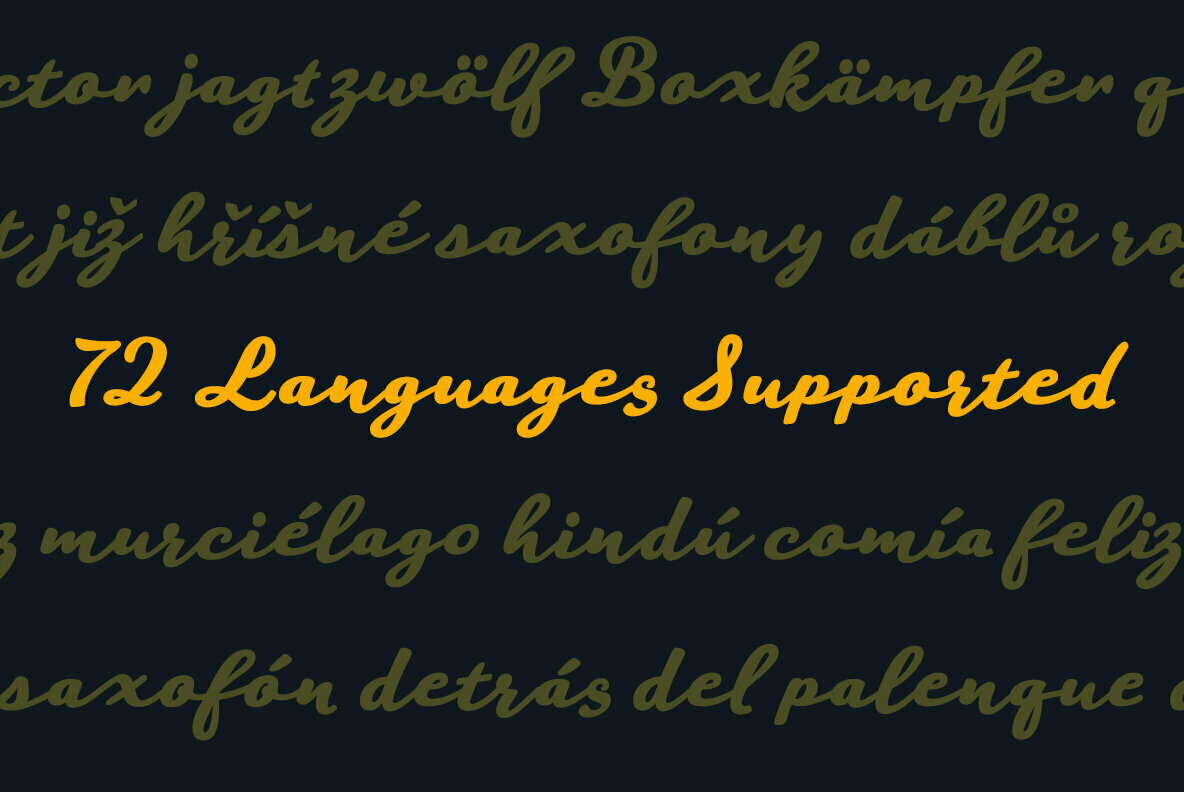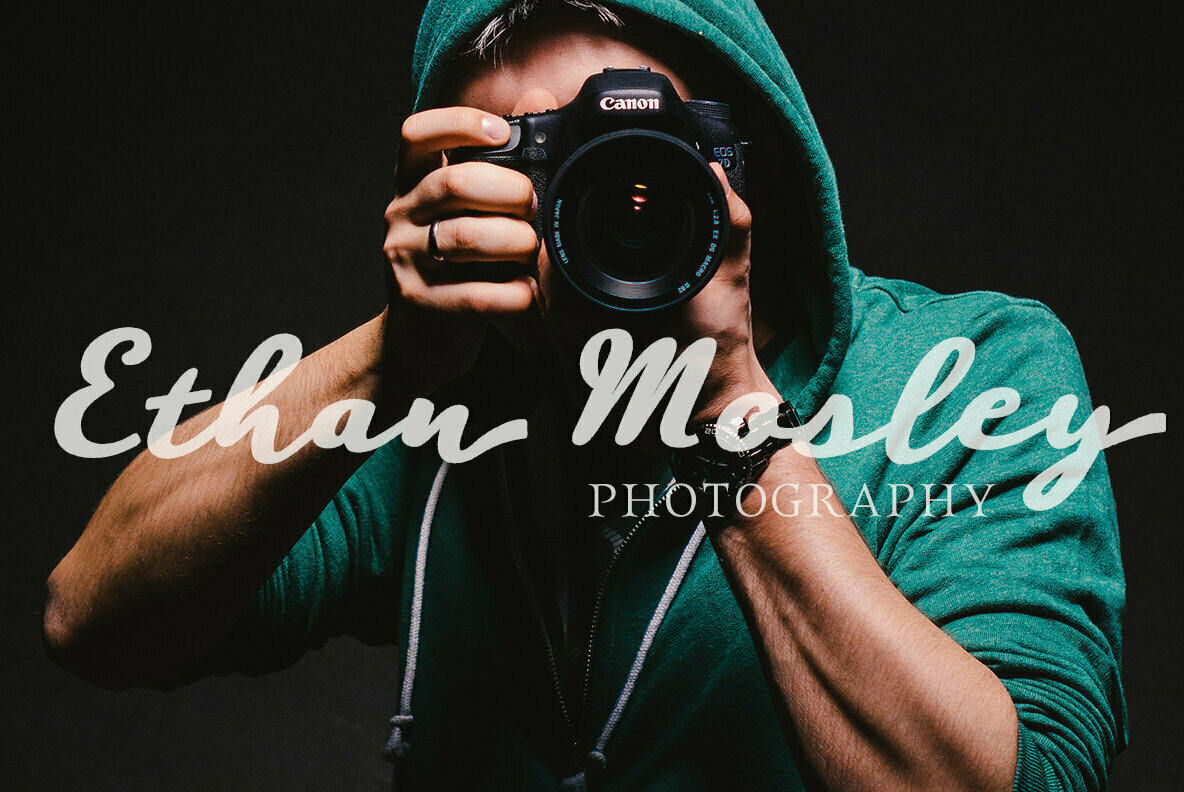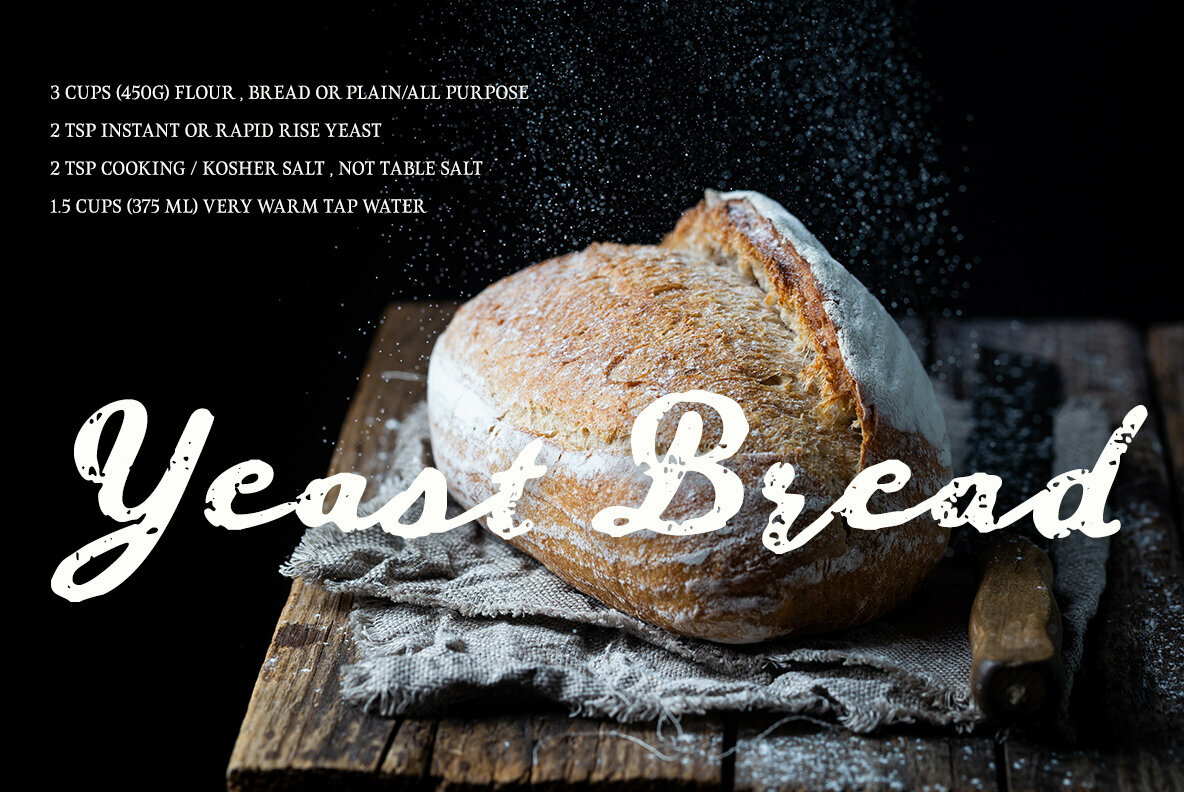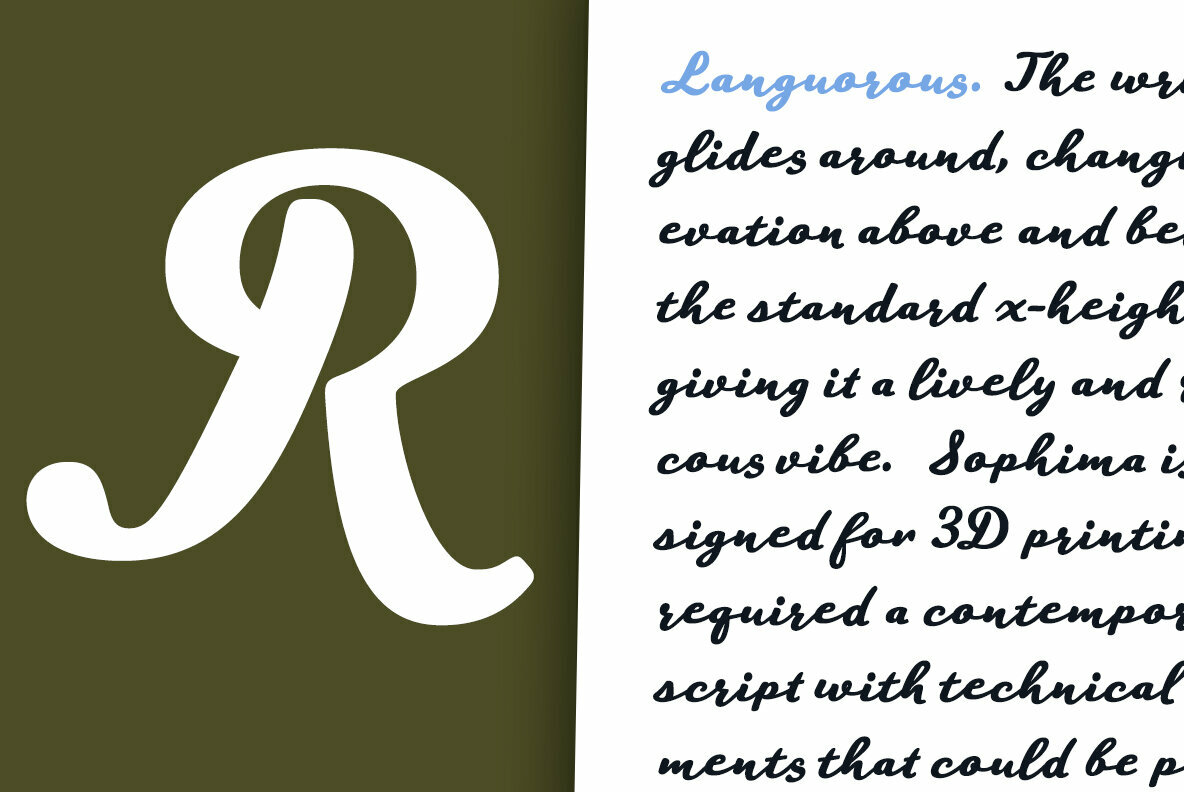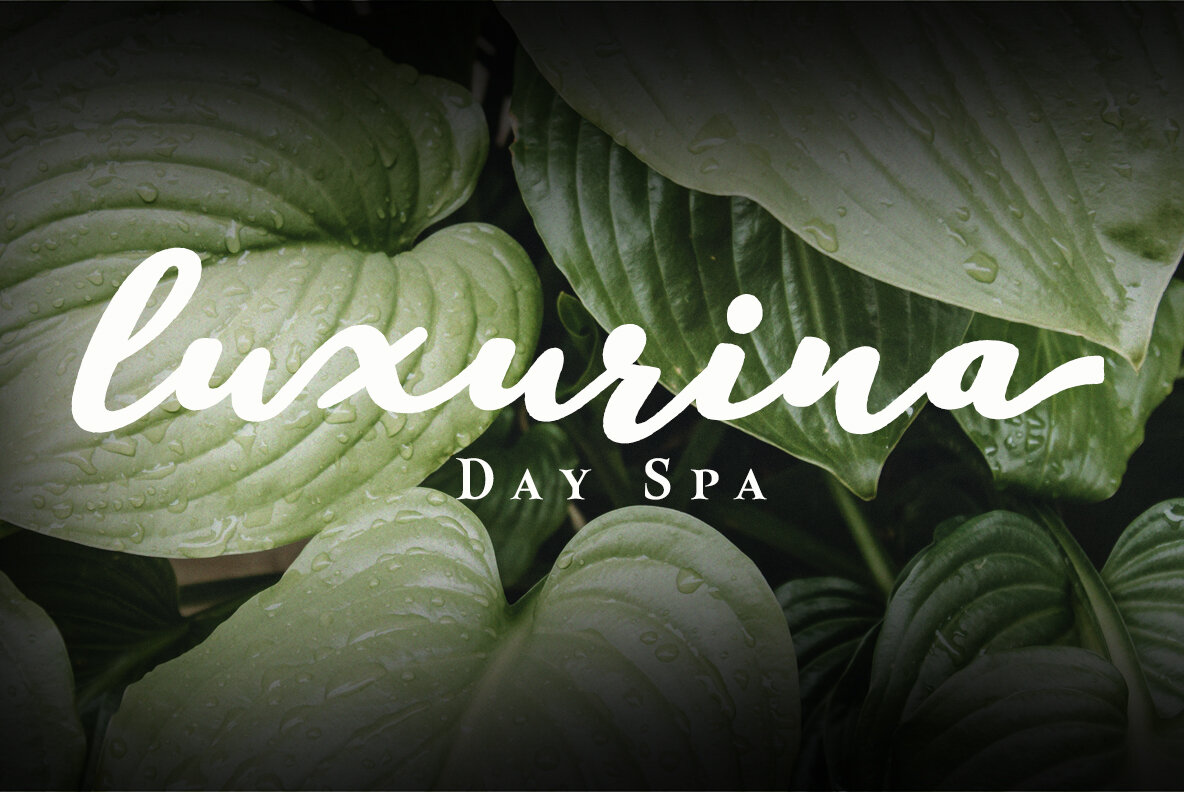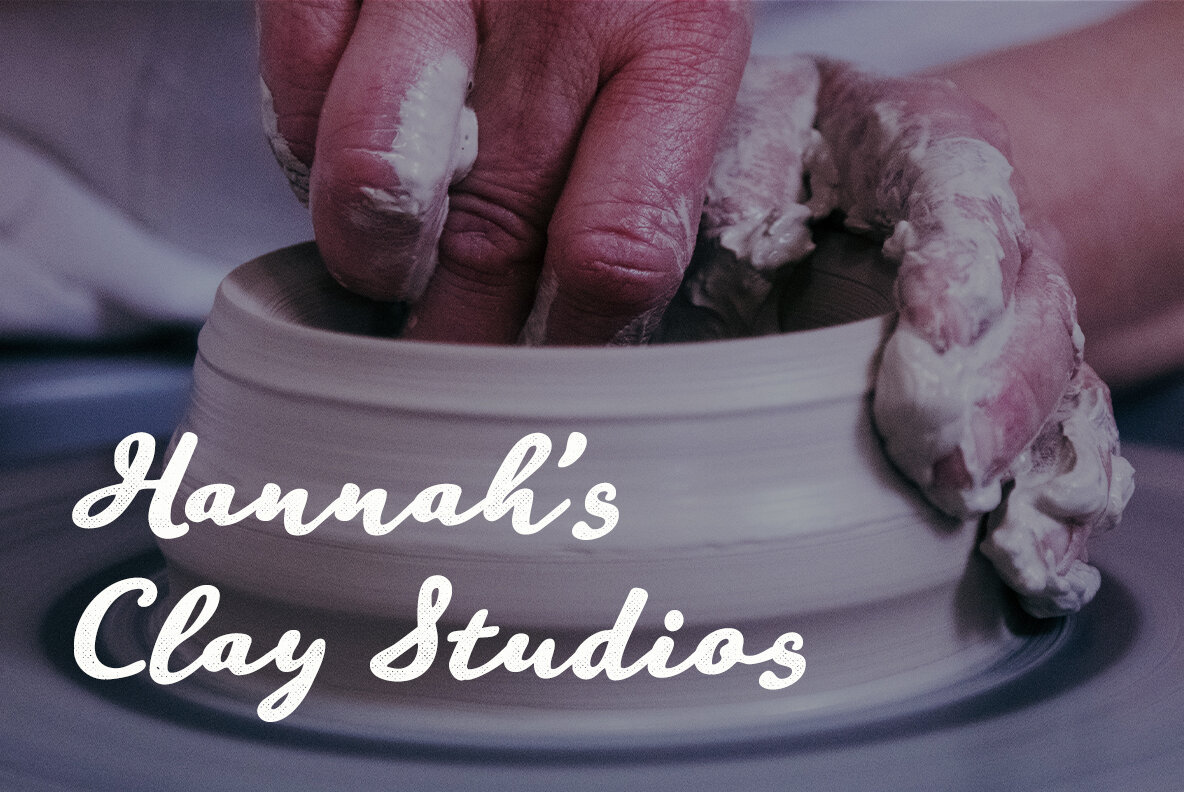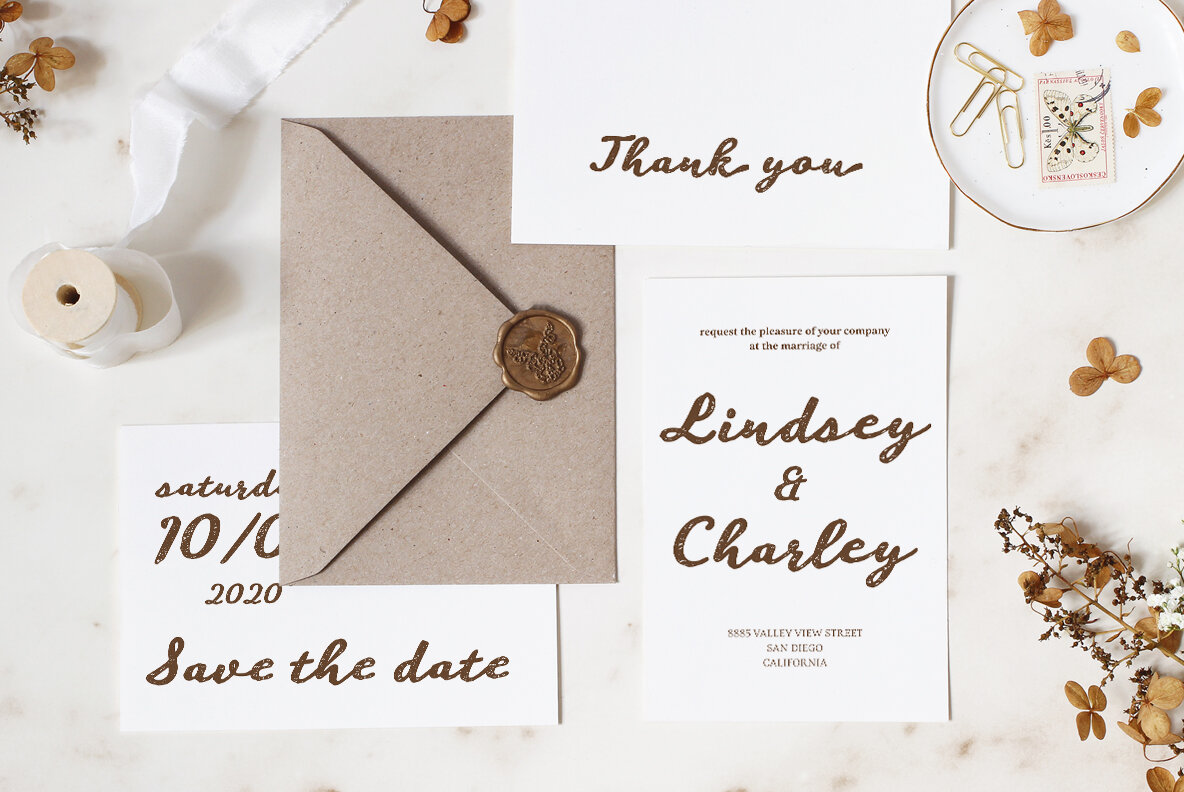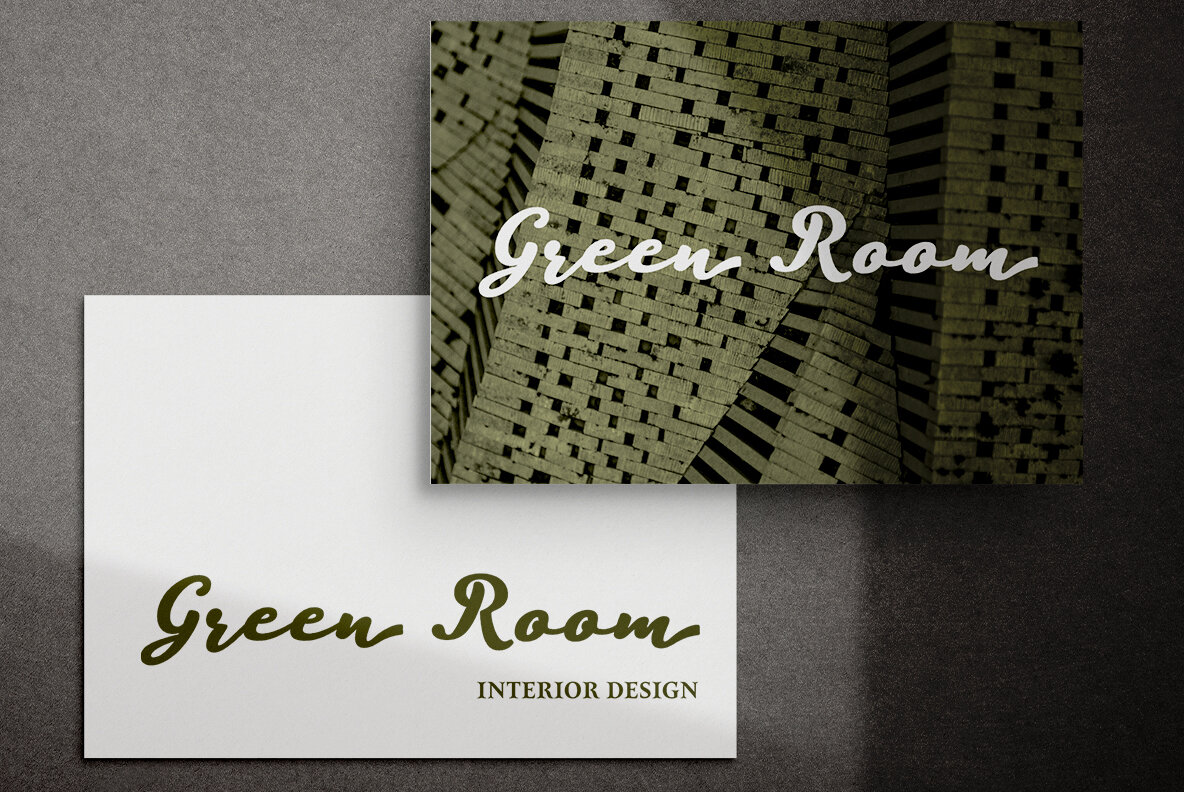
Sophima Font
Sophima exudes languorous luxury. The writing glides around, changing elevation above and below the standard x-height, giving it a lively and raucous vibe. Sophima is designed for 3D printing. I required a contemporary script with technical elements that could be printed using a 3D printer. This necessitates the use of quite thick linking characters. Another result of this technology was the need that all letters, including caps, be linked. Such letters are included in optional Opentype style sets. The unusual technological limitation gave the design a new and distinct vibe.
Sophima may be used for a variety of purposes, including headlines, weddings, social media, logos, posters, packaging, T-shirts, coffee shops, restaurants, magazine headers, signage, gift/post cards, cafés, and weddings.
Designers have a plethora of alternatives from which to pick, giving them greater variety, power, and creative flexibility. Automatic ligatures for best character connections are supplied, as are alternate ending characters that appear at the end of words that lack connectors or have lengthy swash endings. Sophima is made up of five fonts: one standard and five texture variants that change the tone of the typeface. Each design has 500 characters and is available in more than 75 languages. The typeface has 15 OpenType features, such as stylistic alternates that change the look of characters, ligatures, and more.
Constraints and a desire to solve challenges breed the finest creativity. And there's no question that Sophima came up with a solution to the situation. Now use Sophima to create your own designs.
• Ligatures
• 7 styles: 1 undistressed, 6 distressed • 500+ glyphs in each type
• More than 75 languages are supported, including extended Latin.
• Each style includes 12 OpenType features, including stylistic alternatives, ligatures, old-fashioned figures, and other helpful elements.
• Two different swash ending varieties.
• Non connected forms
• All connected forms, including caps
• Randomly selected character forms for organic looking textures.